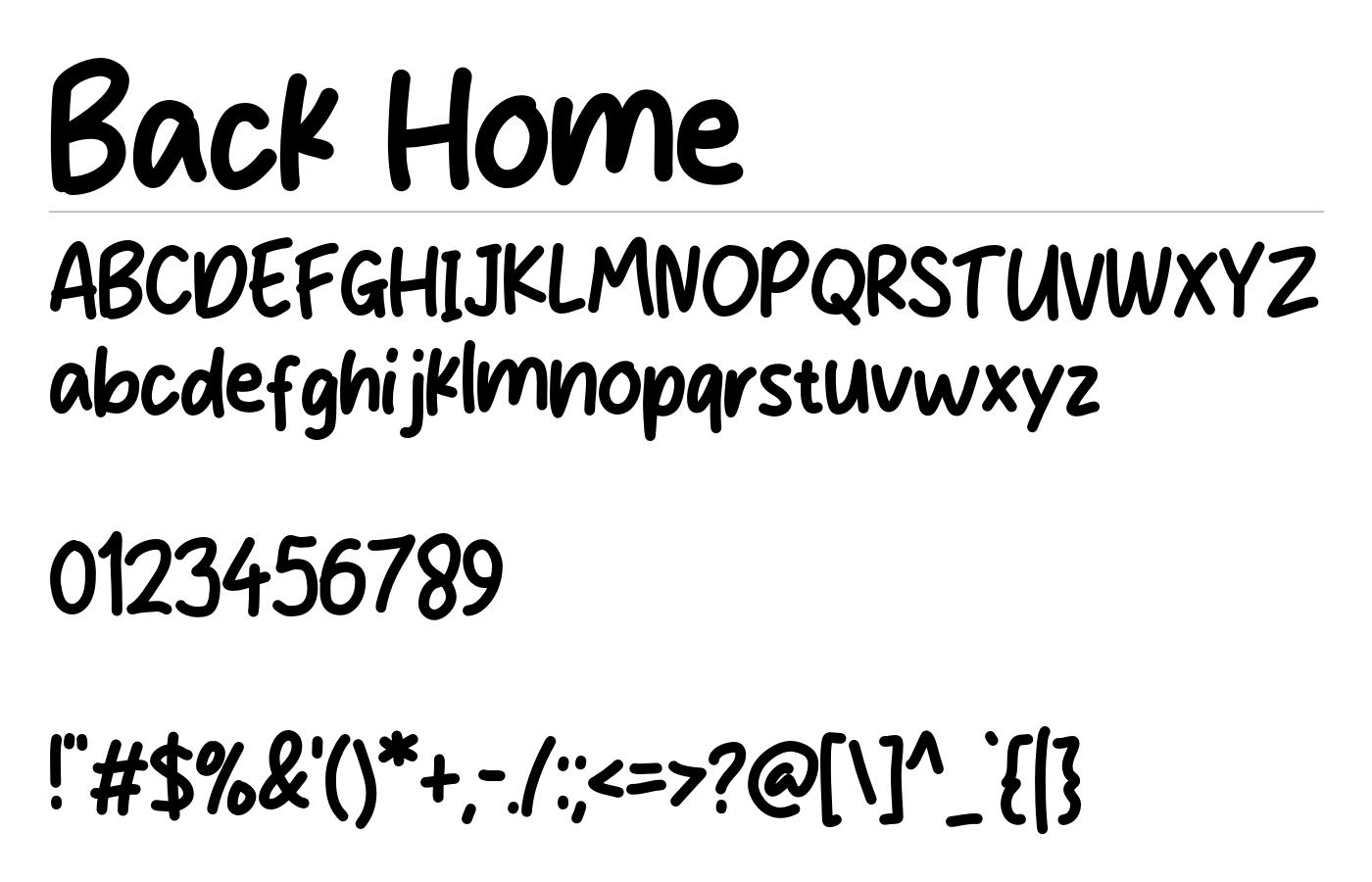
Back Home is a playful, informal sans serif font with a handwritten feel that conveys warmth and friendliness. Its rounded, slightly irregular letterforms and moderate weight make it perfect for casual designs, children's materials, or creative branding that seeks a personal touch. This font works best for headlines, logos, and packaging where approachability and charm are desired.
Back Home Font
About Back Home Font